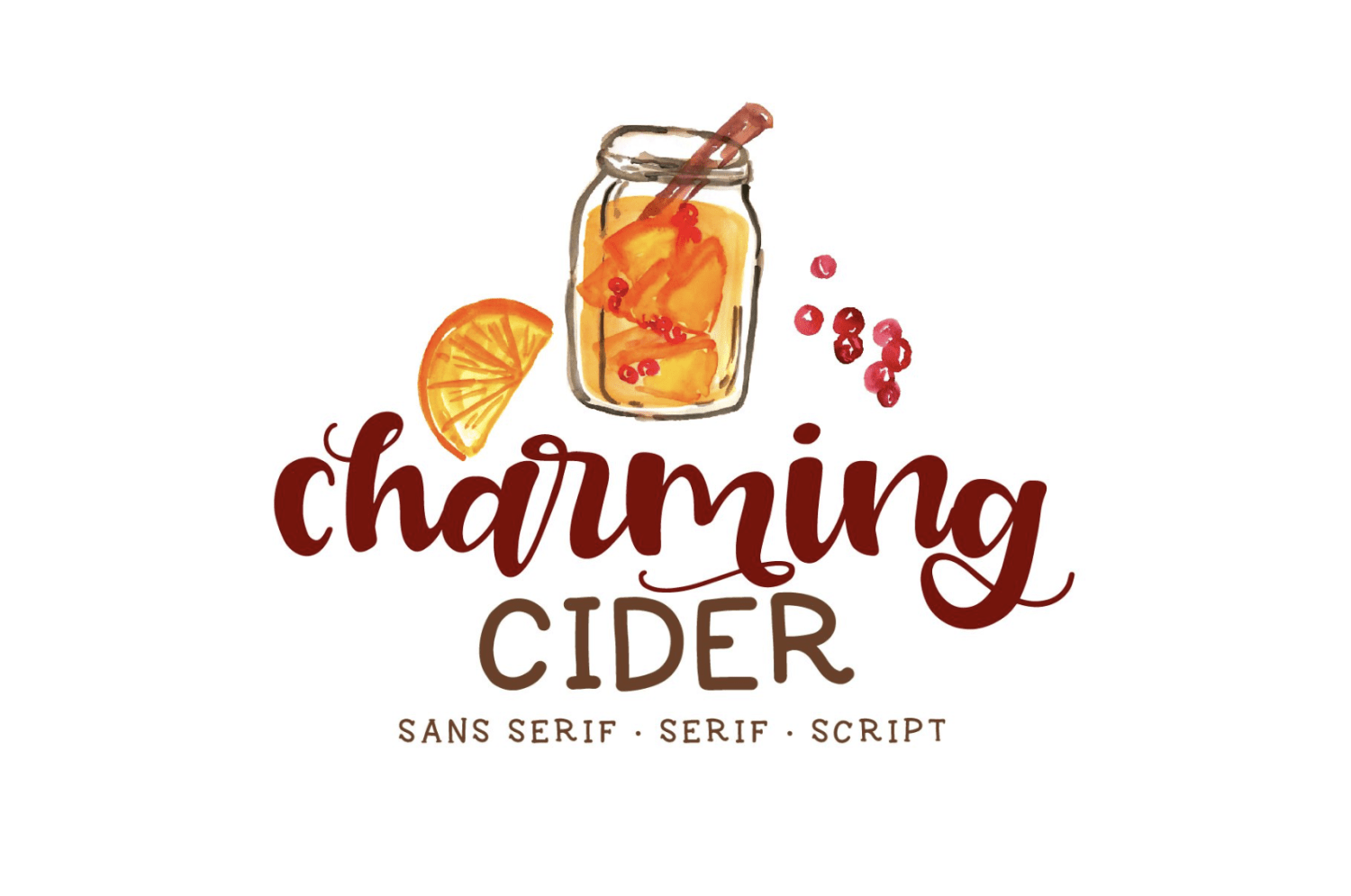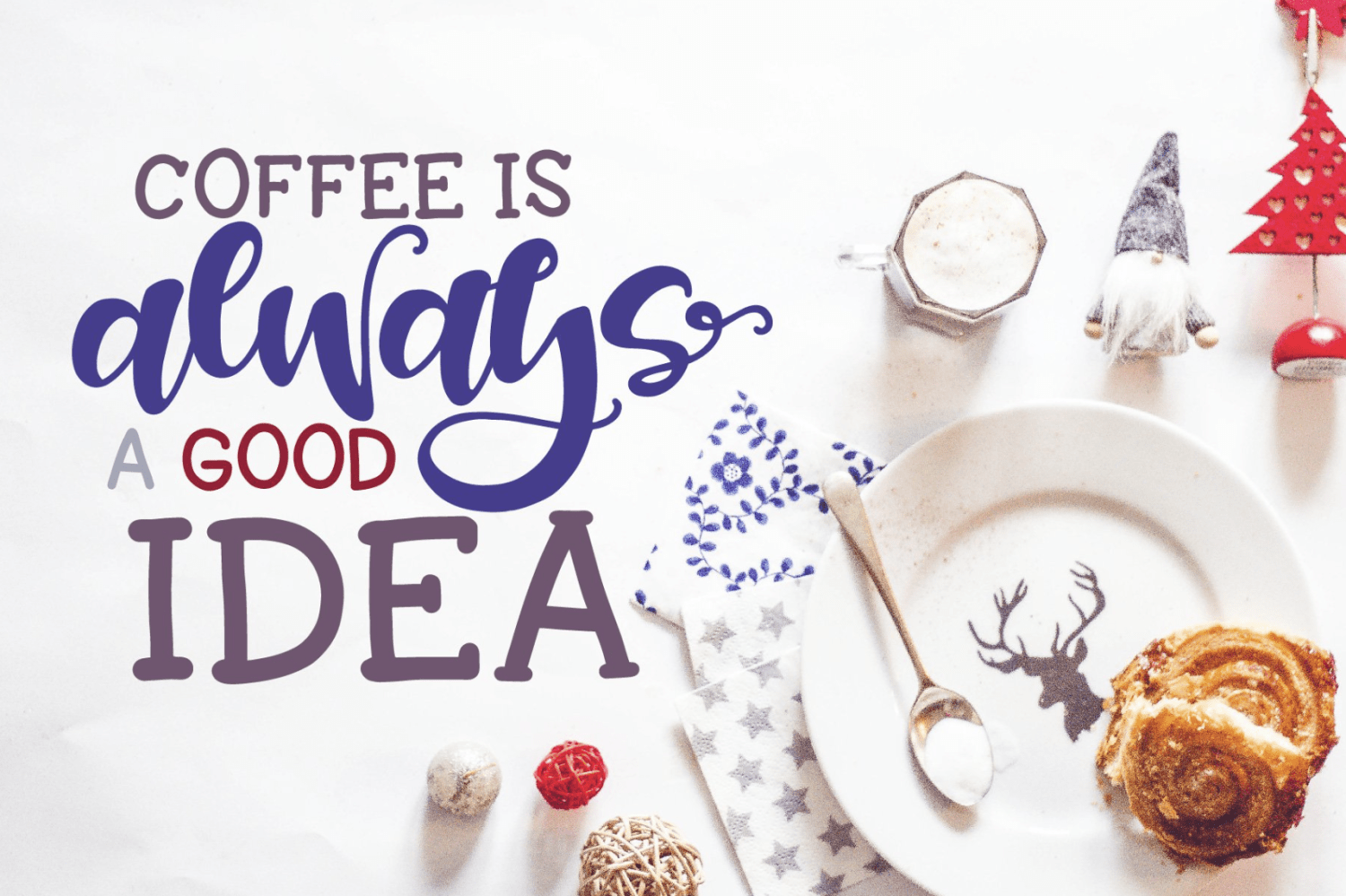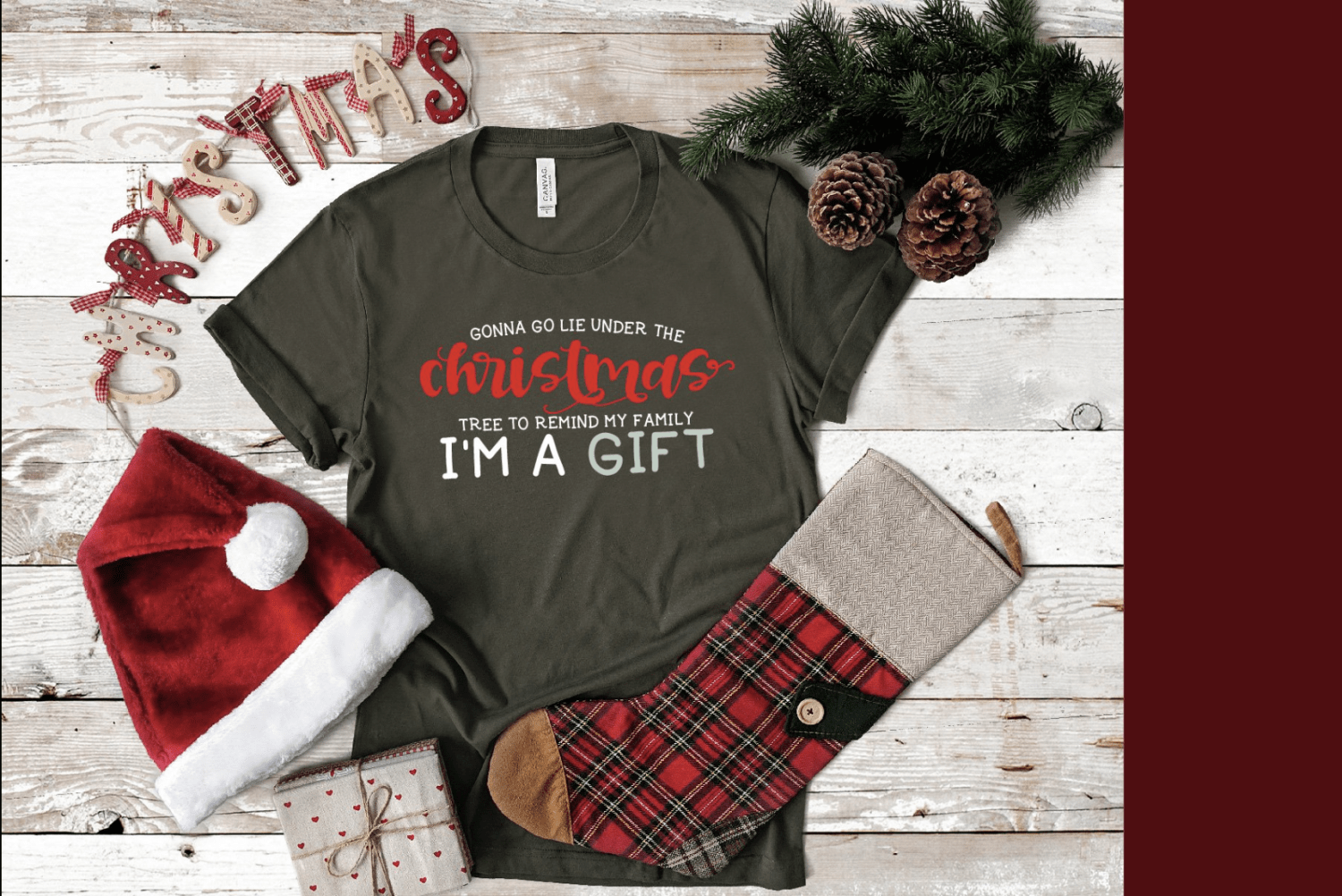
Charming Cider
Brand new! Includes easy to cut letters and bonus ligatures and glyphs for you!
Charming Cider Serif
Charming Cider Print
Charming Cider Full